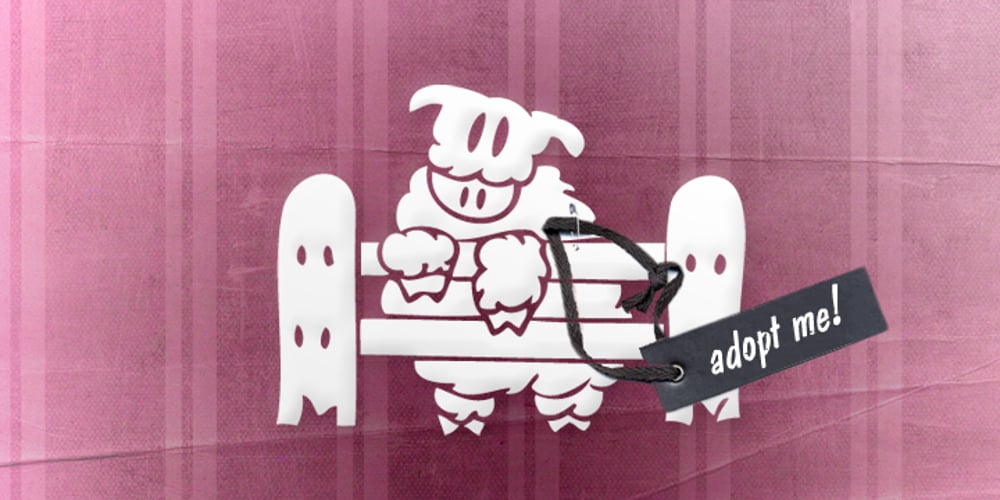
Fauna
Fauna font
Fauna Font Family was designed by Lara Sofia, Susana Mabel Maurette and published by Del Alma. Fauna contains 2 styles and family package options. Fauna is the set of cute animals you were looking for! We know these animals will give their best in order to give a lovely touch to your work. With a total of 108 characters; the font family is divided into two styles of 54 each: Fauna Blanca and Fauna Negra. Choose one of them… or better, choose both!